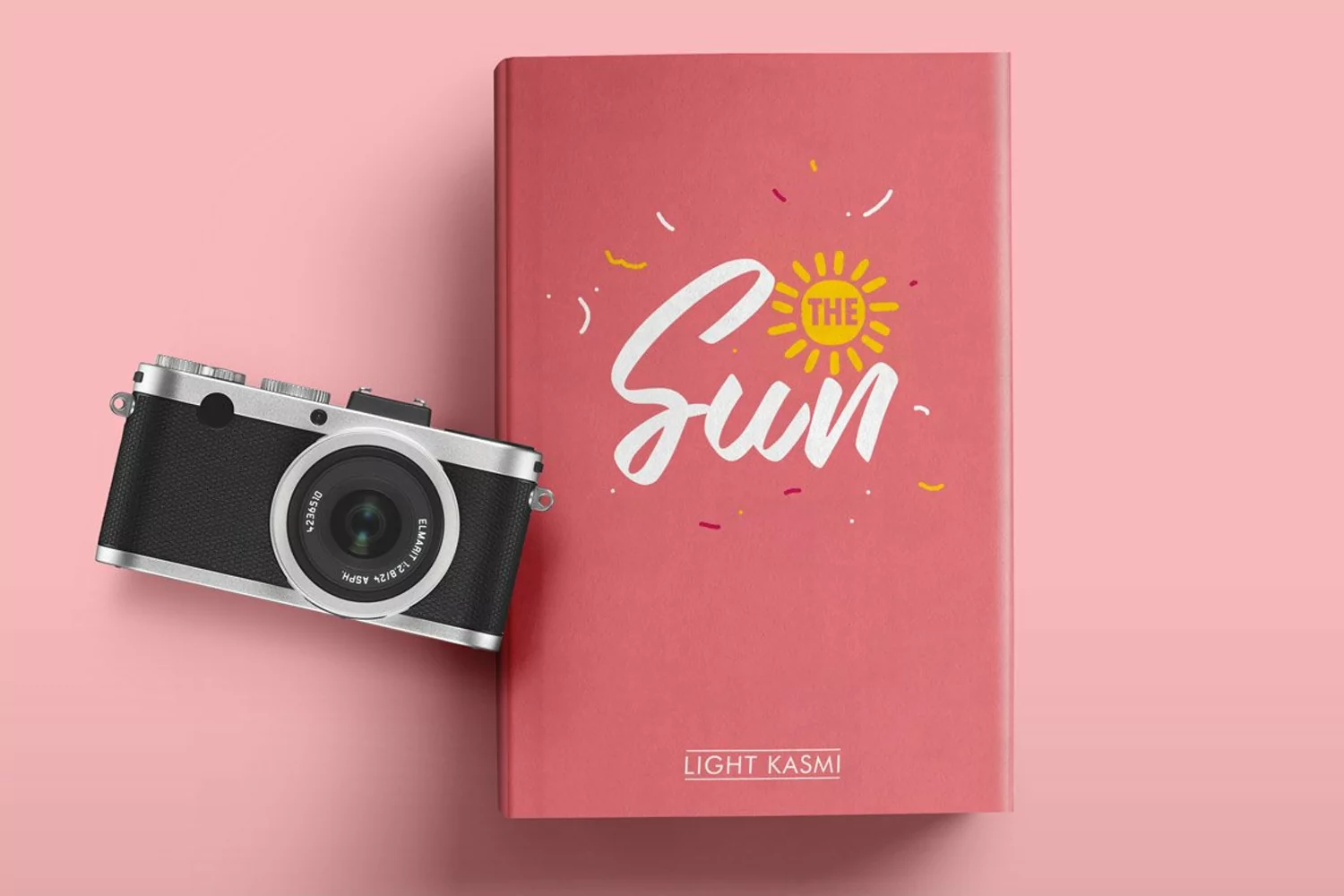
Elone Font is a beautiful handmade brush font, modern calligraphy & fresh typeface. Elone Font suitable for logo, branding, greeting card, signature, poster and any design that you create.